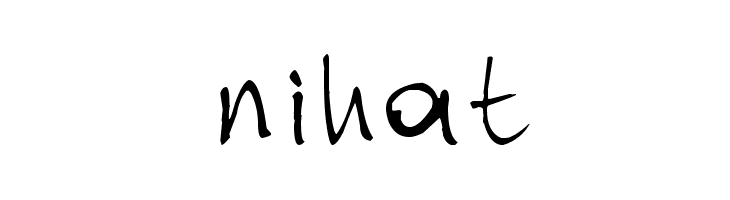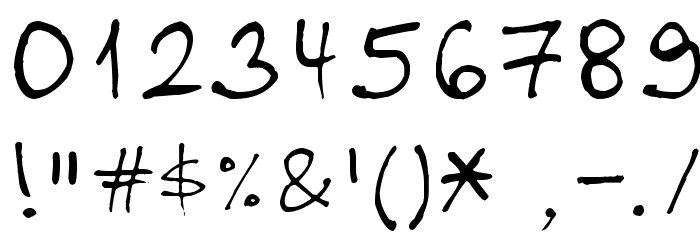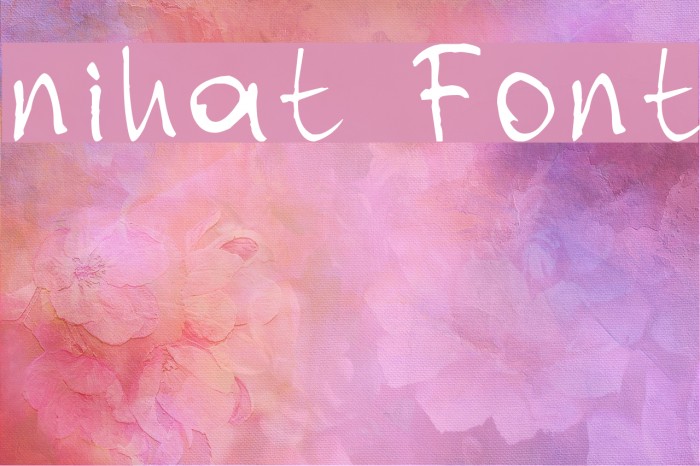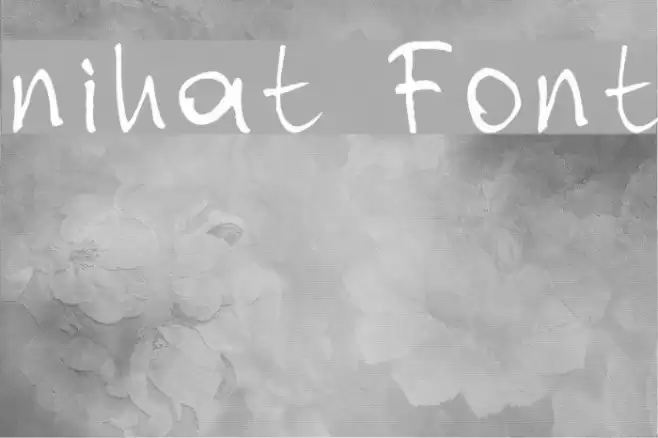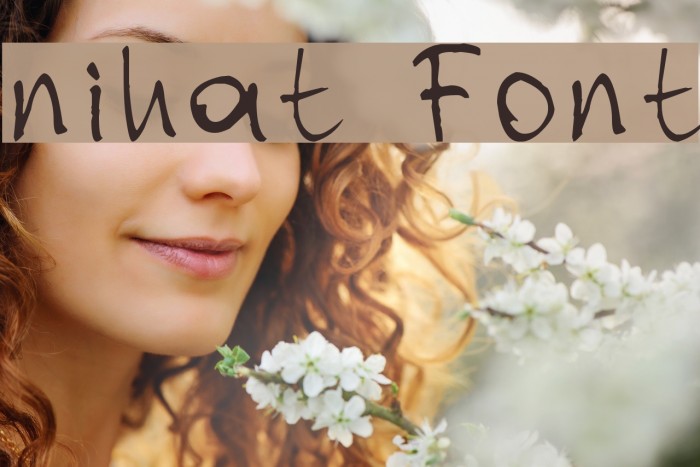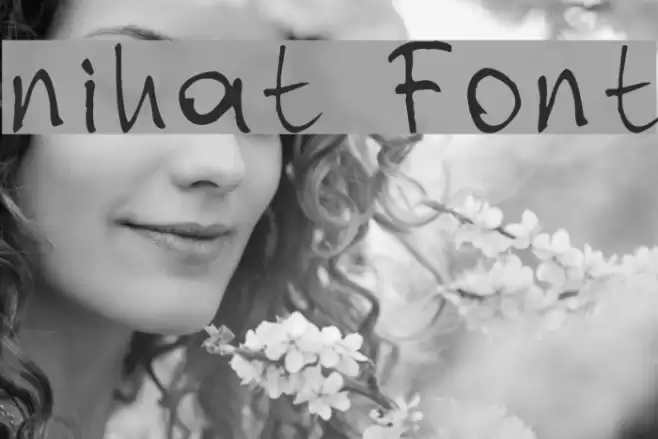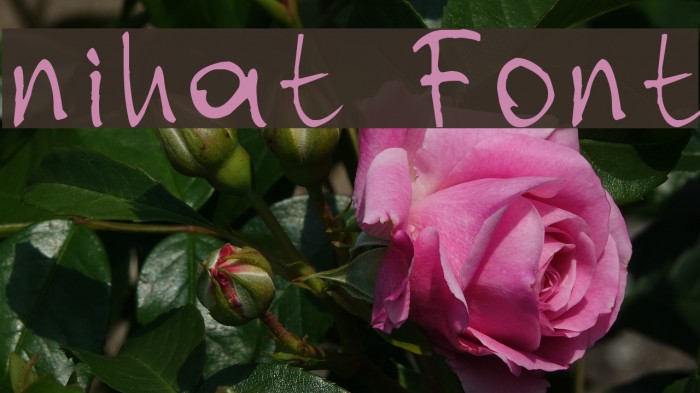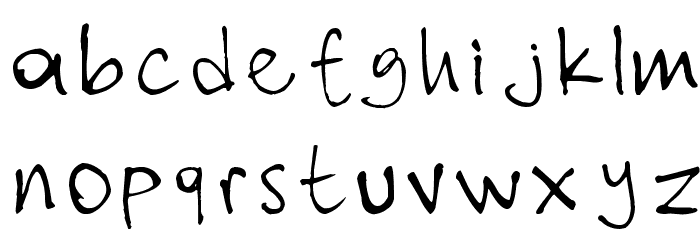
nihat Font
nihat Description
This font exhibits a playful and informal handwritten style, characterized by its uneven strokes and slightly irregular letterforms. The uppercase and lowercase letters maintain a consistent flow, giving the impression of a casual, personal touch. The numerals and special characters follow the same aesthetic, adding to the cohesive look of the font. Its organic appearance makes it suitable for projects that require a humanistic and approachable feel. The font's unique charm lies in its ability to convey warmth and personality, making it ideal for creative and artistic applications.
| Overall Style | Casual, Artistic |
| Use Case | Headlines, Informal text, Creative projects |
| Proposed Projects | Greeting cards, personal blogs, children's books, artistic posters, and casual branding. |